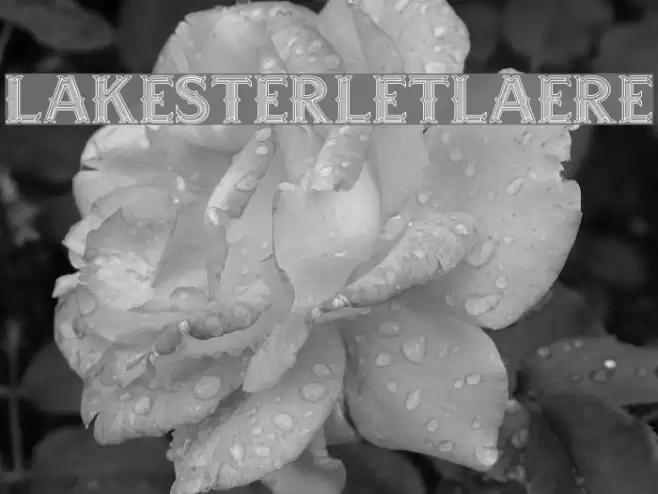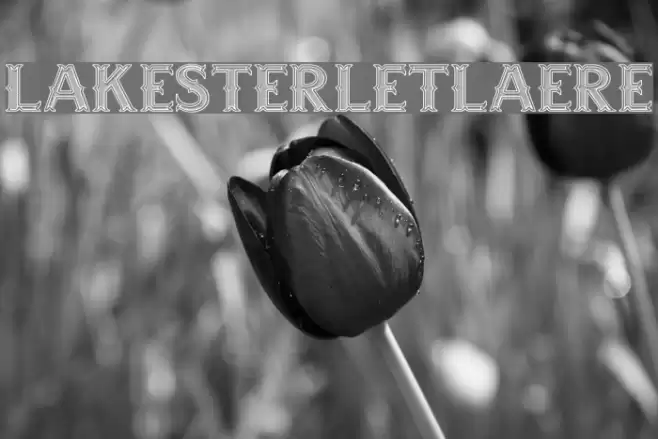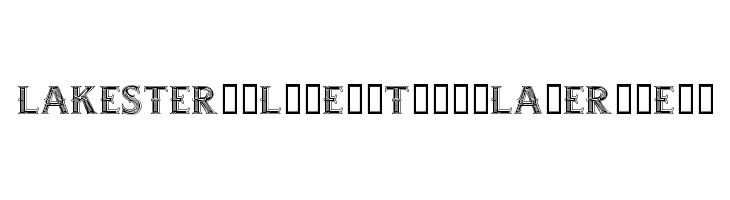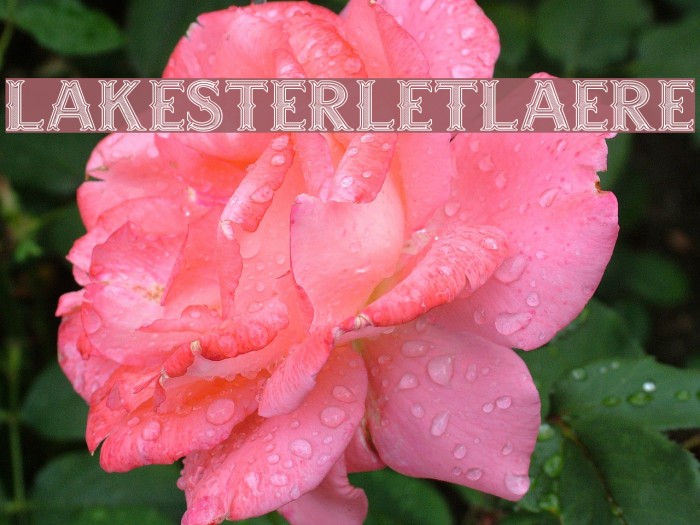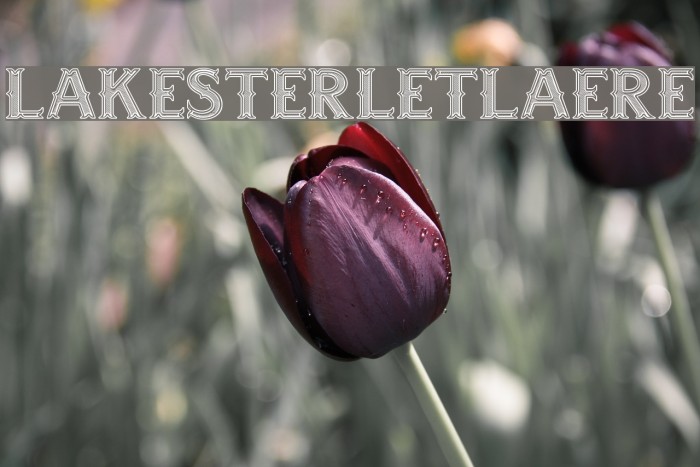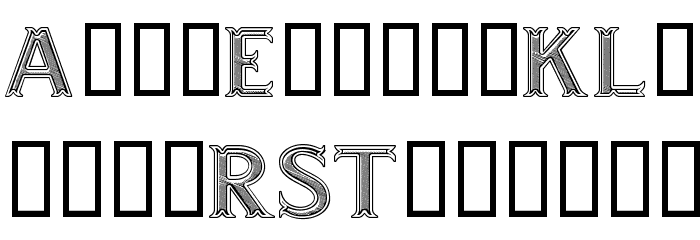
LAKESTERINLINEOPTION2LAYER3DEMO Font
LAKESTERINLINEOPTION2LAYER3DEMO Description
This decorative font features intricate inline detailing within each character, giving it a unique and ornate appearance. The letters have a classic serif structure with embellishments that add a vintage flair. The inline design creates a sense of depth and texture, making it stand out for attention-grabbing purposes. The font is well-suited for projects that require a touch of elegance and sophistication, such as invitations, posters, or branding materials. Its detailed design may not be ideal for small text sizes but excels in larger displays where its intricate details can be appreciated.
An ornate serif font with intricate inline detailing for a vintage look from Uncategorized fonts.
- Proposed Projects: Ideal for invitations, posters, branding, and decorative headlines.
- Overall Style: Vintage